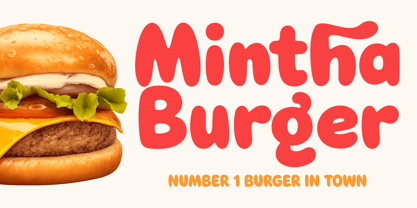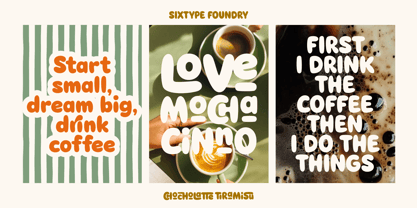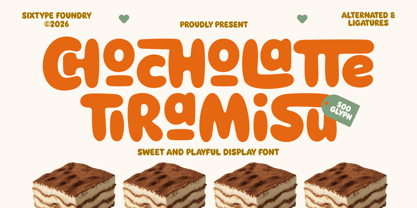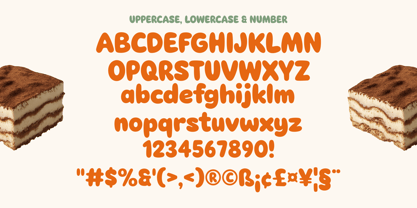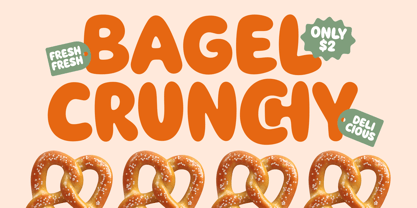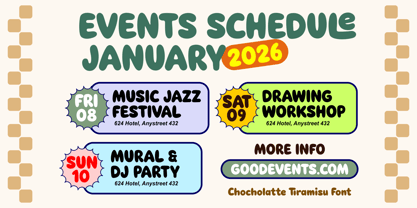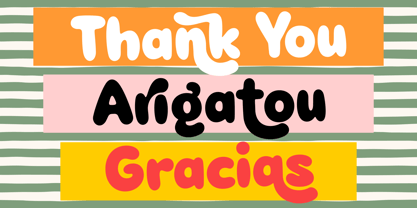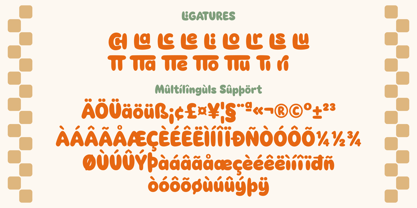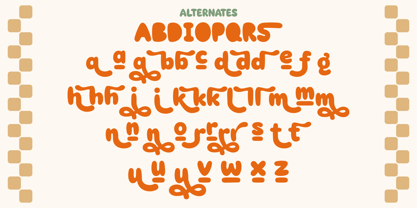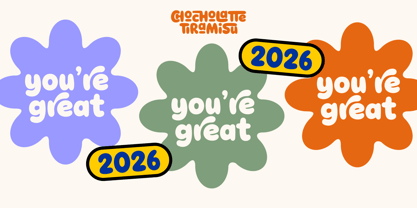
Chocholatte Tiramisu
Chewy Tiramisu is a delightful and chunky display font that exudes a soft retro charm with its irresistibly playful curves. Crafted with bold rounded shapes, quirky alternates, and expressive ligatures, this typeface infuses a cheerful handmade essence into any creative endeavor. Ideal for branding, snack packaging, children’s products, café menus, social media graphics, posters, logos, stickers, and whimsical editorial layouts, Chewy Tiramisu offers a warm and inviting visual style that captures attention effortlessly. The font features uppercase and lowercase letters, numerals, punctuation, multilingual support, stylistic alternates, and ligatures, enabling more dynamic and engaging typography compositions.